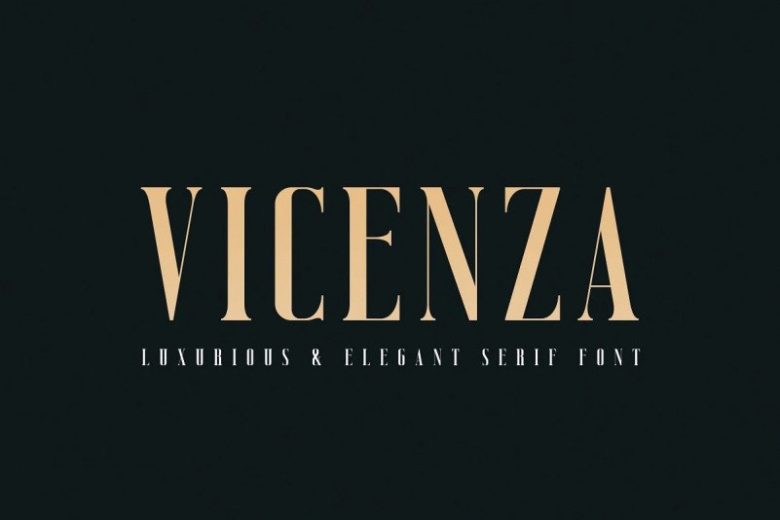
Vicenza Font
Vicenza Font is a modern and elegant serif font package by Almarkha Type. This serif font is perfect for your next personal branding project. Inspired by the famous minimalist logo and Vicenza has 2 regular and Italic styles is perfect for the purposes of designing templates, brochures, videos, advertising branding, logos and more.